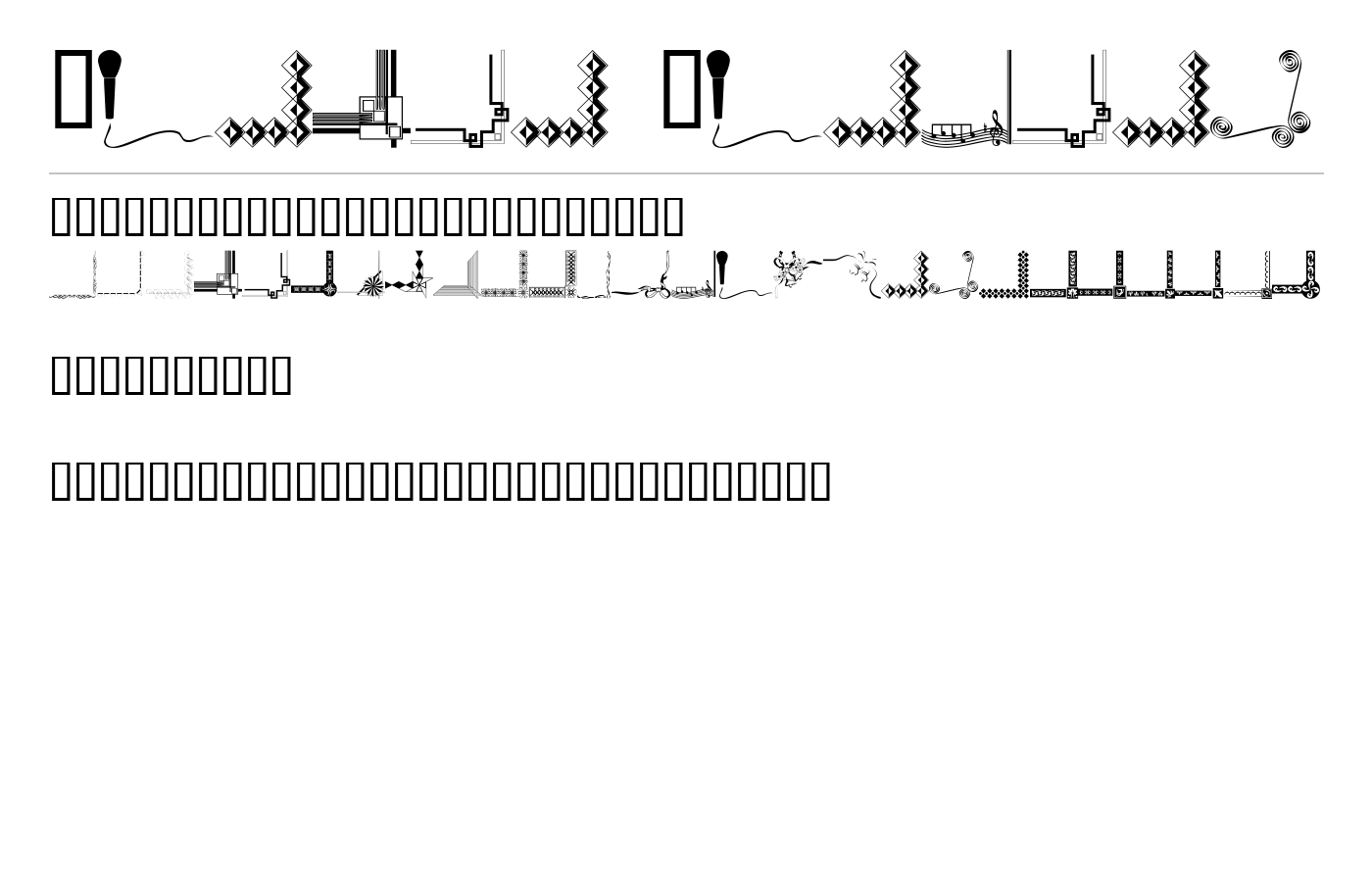
Border Corners Font is a unique decorative typeface that features intricate, ornamental corner designs rather than traditional letterforms, making it more of a symbol or dingbat font. Its variety of detailed motifs ranges from geometric to floral and whimsical styles, perfect for adding elaborate borders and frames to creative projects. This font works best for invitations, posters, or branding where embellishment and a vintage or artistic flair are desired rather than for standard text use.
Border Corners Font
About Border Corners Font